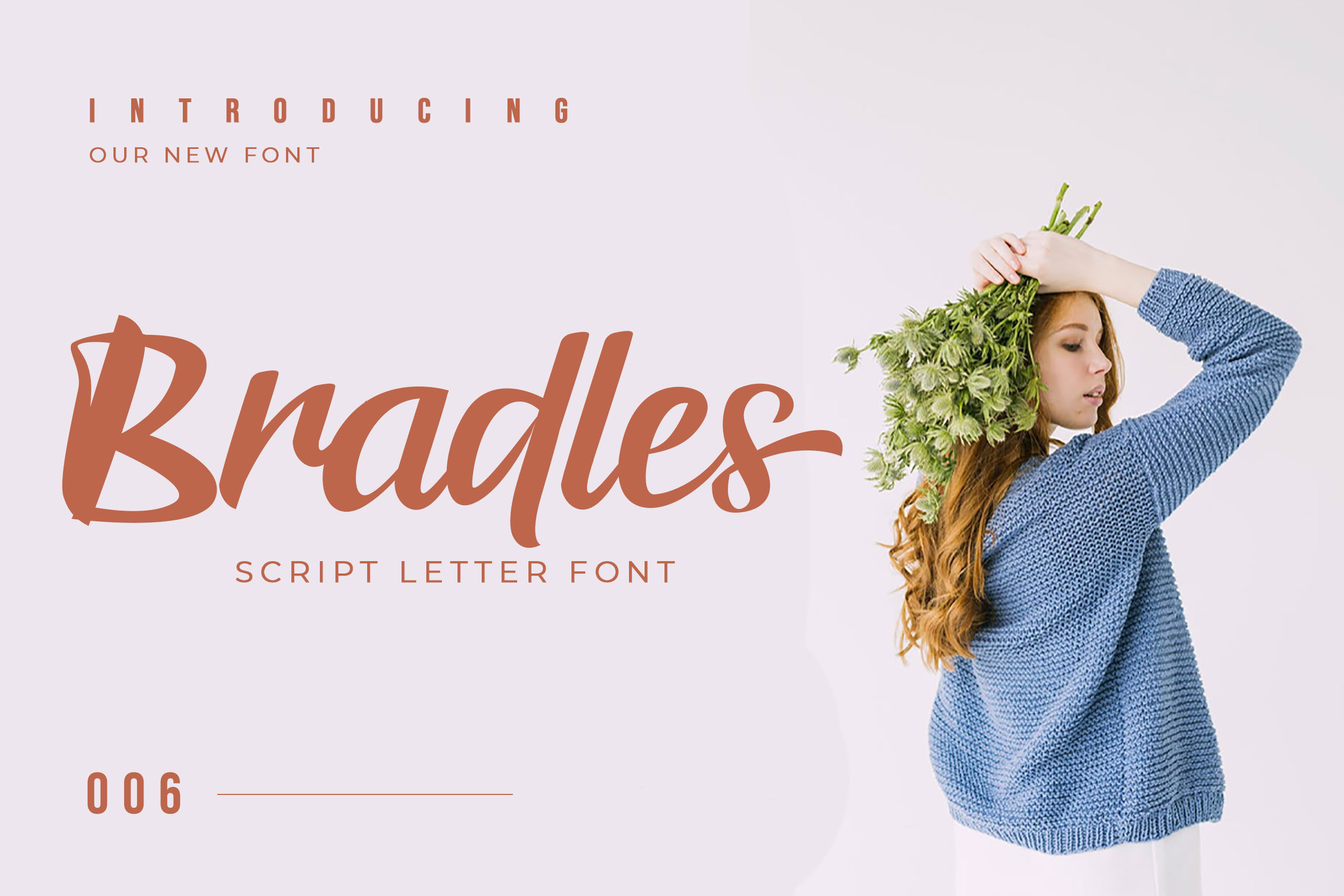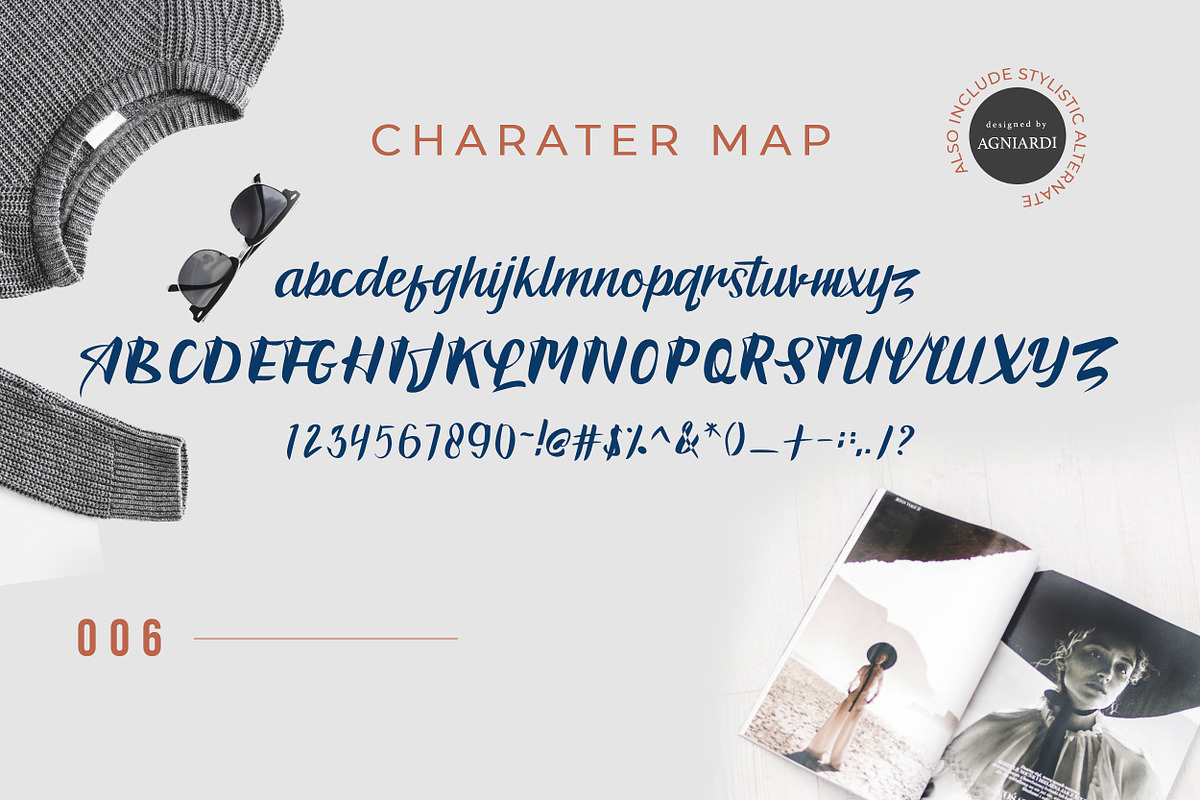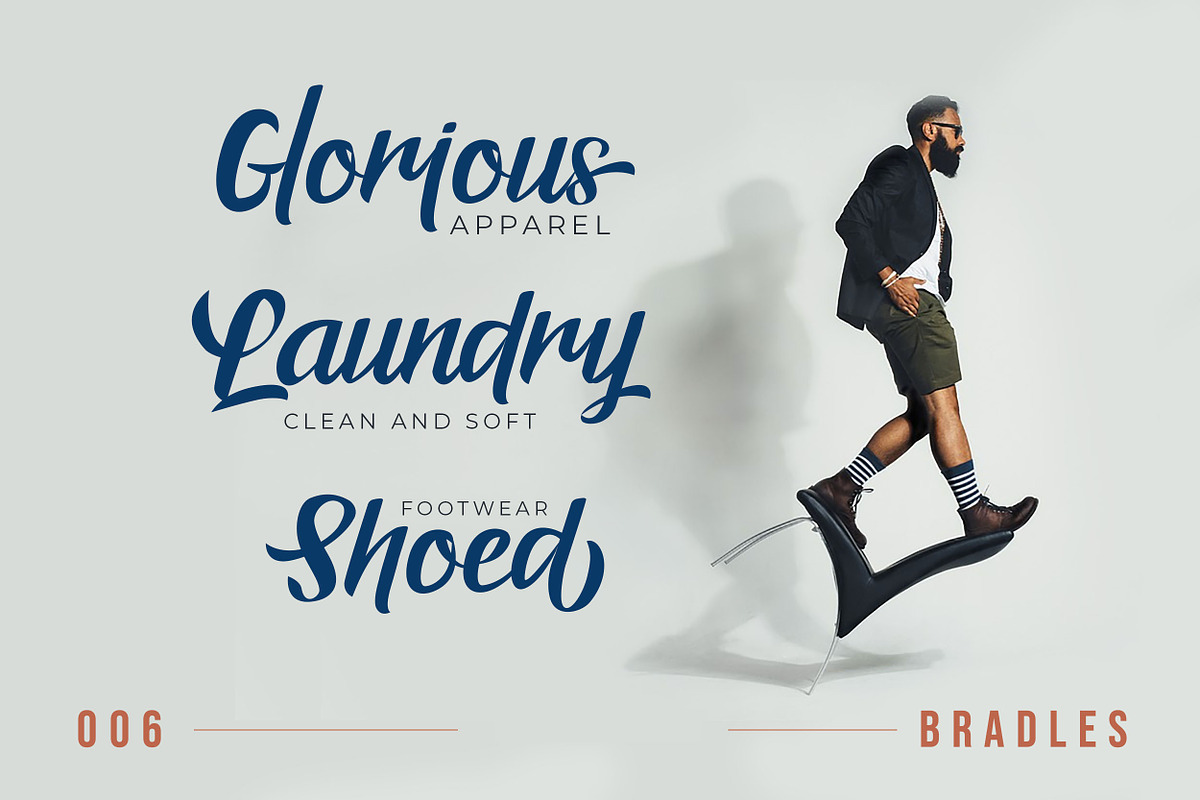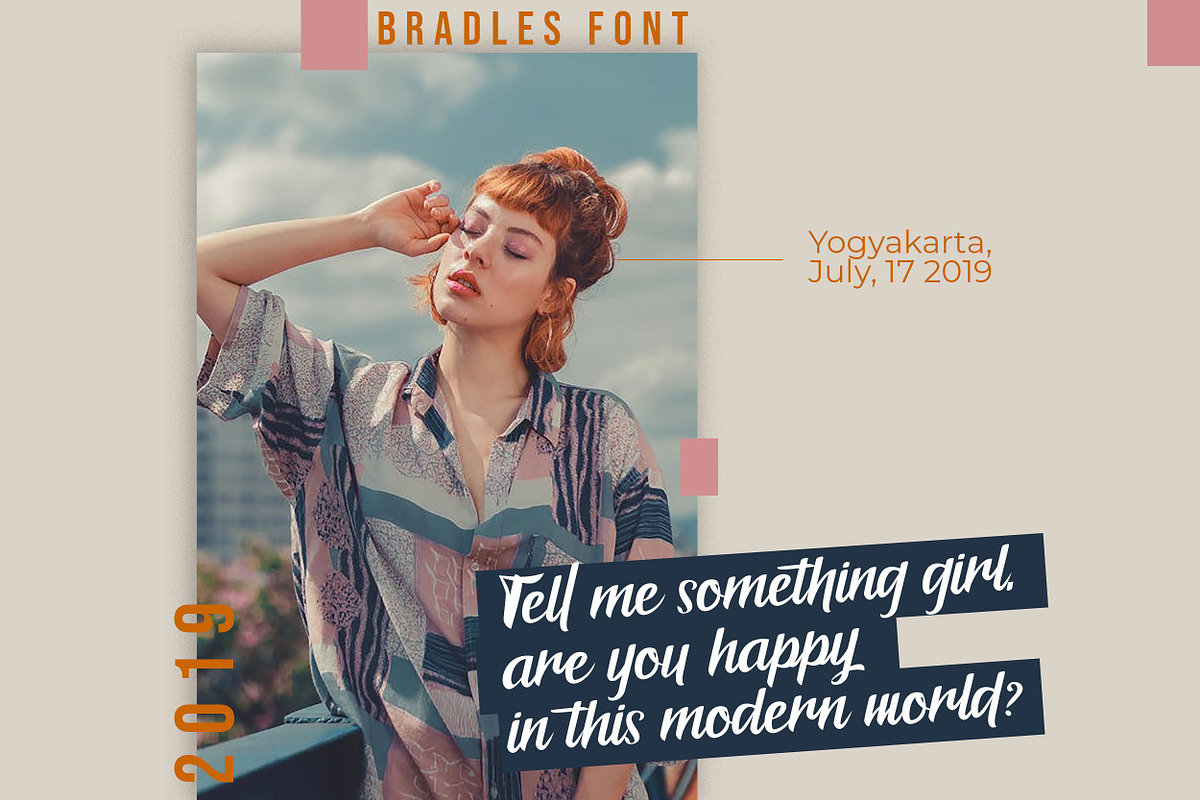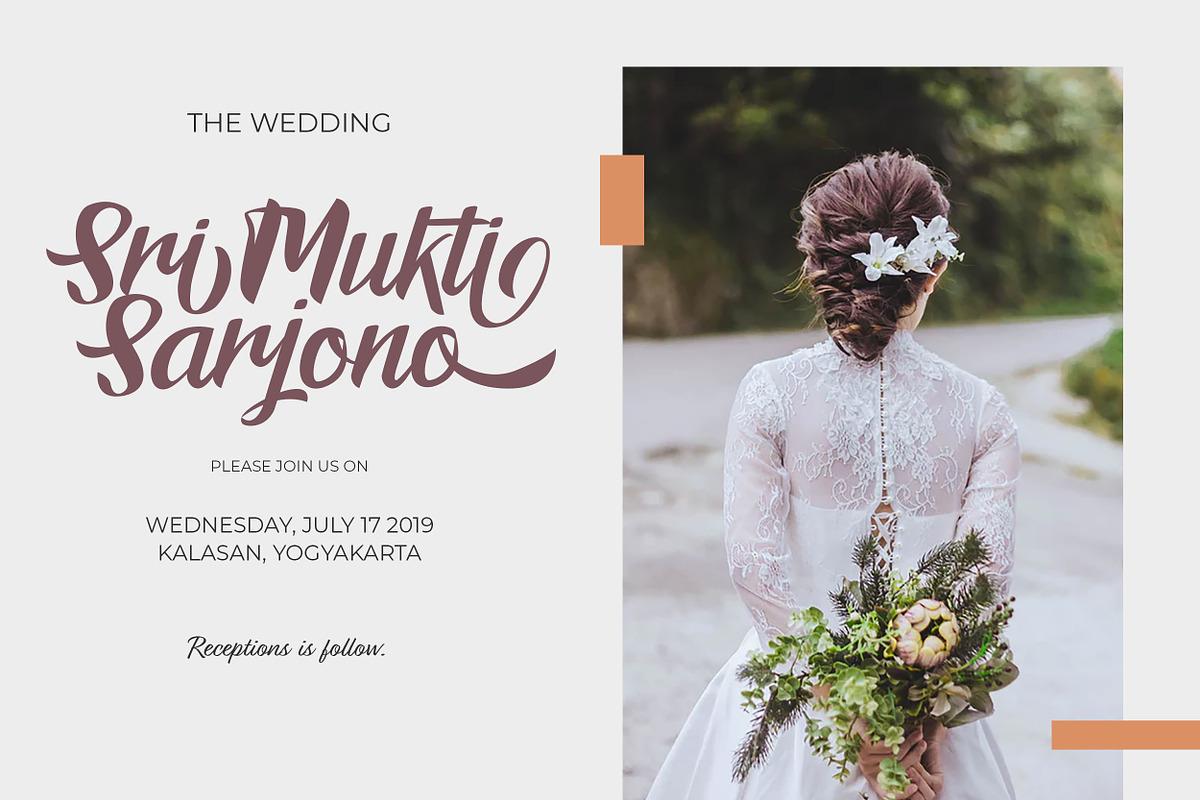
Bradles Font
Bradles is a bold handwritten typeface suitable for many different projects. Perfect for display purposes and works well on both modern and vintage styled designs.